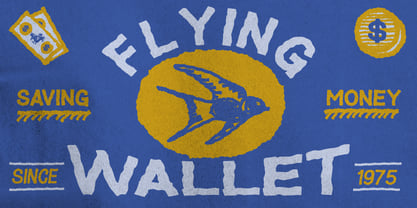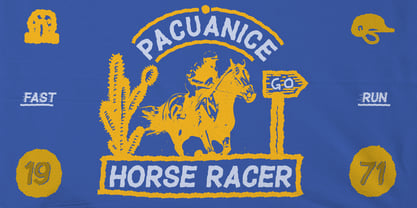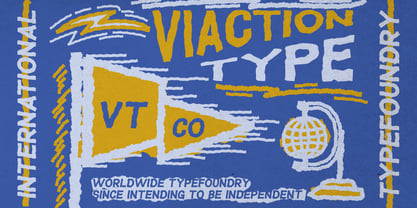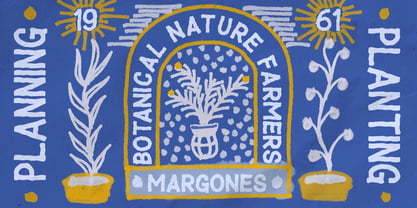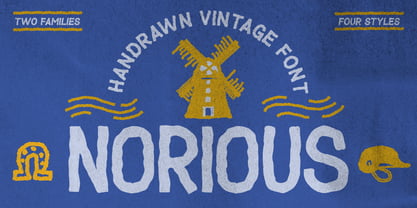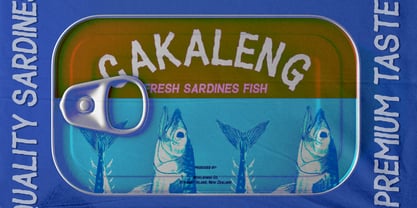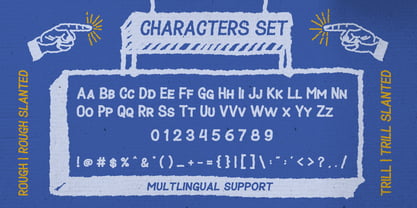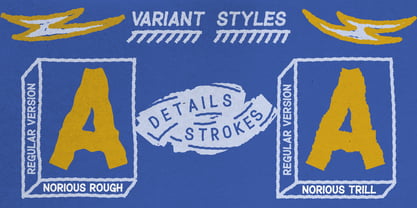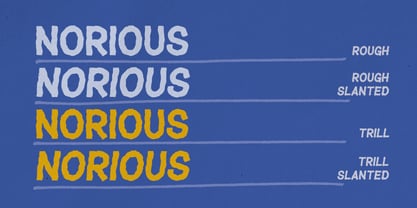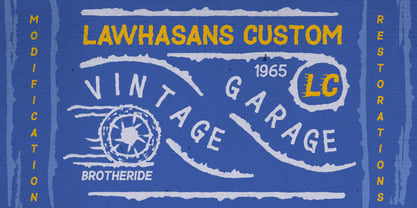
Norious
by Viaction Type.Co
The Norious Font Family was designed by Lukman Hidayat and published by Viaction Type.Co. Norious contains 4 styles and family package options.
Norious is a bold, vintage-inspired typeface that brings a raw, hand-drawn aesthetic to your design projects. Crafted with rough, sketchy strokes and a rugged charm, Norious captures the essence of handcrafted typography with its unique, organic feel. Perfect for projects that need a touch of retro, rebellious flair, Norious is ideal for logos, posters, branding, and more.
Available in two distinct families—Norious Rough and Norious Trill—and four dynamic styles, Norious offers the versatility you need for any design. The collection includes:
• Norious Rough: A bold, gritty style with an authentic hand-drawn appearance.
• Norious Rough Slanted: A slanted version of the Rough style, adding a sense of movement and energy.
• Norious Trill: A smoother, more refined version of the Rough, while still maintaining the vintage charm.
• Norious Trill Slanted: The slanted version of Trill, perfect for dynamic designs with a sense of motion.
Whether you’re designing a retro logo, a distressed poster, or a modern vintage brand identity, Norious brings the perfect combination of ruggedness and style. With its unique blend of sketchy textures and vintage appeal, this font will elevate your design to new creative heights.
Features:
• 2 Font Families: Norious Rough and Norious Trill
• 4 Font Styles: Regular & Slanted versions for more creative flexibility
• Handcrafted Appearance: Authentic hand-sketched look with a vintage vibe
• Versatile Use: Perfect for logos, branding, posters, labels, packaging, and more.
Designers: Lukman Hidayat